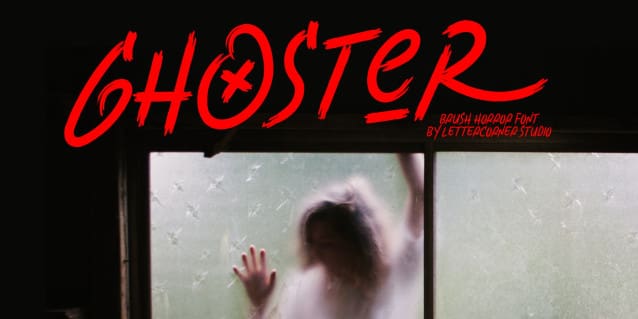
Ghoster Brush Font
Ghoster Brush Font is a fun and playful display font perfect for magazines and crafts. Add it to your font library, and use it to create spectacular designs.